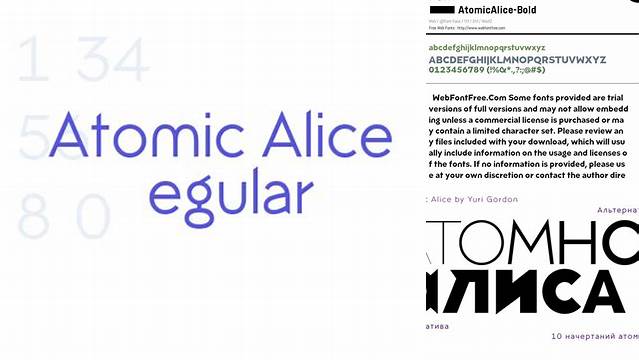
Atomic Alice Regular Font: Free Download & Guide
Hey font enthusiasts! Looking for that perfect retro-futuristic vibe for your next project? You've probably stumbled upon the Atomic Alice font, and for good reason! This font has a unique charm that blends mid-century modern aesthetics with a playful, almost sci-fi feel. In this guide, we're diving deep into the world of Atomic Alice Regular Font Free Download, exploring everything from its origins and best uses to where you can (legally!) snag it for your designs. So, let's get started, guys!
What is Atomic Alice Font?
Let's kick things off by understanding exactly what Atomic Alice Regular Font Free Download is all about. This captivating font is known for its distinctive, slightly condensed characters and rounded terminals, which give it a friendly yet stylish appearance. Imagine the sleek lines of a vintage diner sign combined with the futuristic optimism of the Space Age β that's Atomic Alice Regular Font Free Download in a nutshell. It's the kind of font that grabs attention without being overly aggressive, making it a fantastic choice for a variety of design projects. Its clean lines and retro feel make Atomic Alice Regular Font Free Download a standout choice for designers aiming to evoke nostalgia or create a modern twist on classic styles. Whether you're working on a branding project, website design, or even print materials, this font can add a touch of uniqueness and sophistication. Think about its potential for logos, posters, and even book covers β the possibilities are truly endless. One of the key reasons Atomic Alice Regular Font Free Download is so popular is its versatility. It works well in both headlines and body text, although it truly shines in larger sizes where its unique characteristics can be fully appreciated. Its legibility is commendable, ensuring your message gets across clearly, while its stylistic flair adds a layer of visual interest that keeps readers engaged. The font's appeal lies in its ability to balance functionality with aesthetics, making it a go-to choice for designers who value both form and function. From a historical perspective, Atomic Alice Regular Font Free Download captures the essence of a bygone era, the mid-20th century, a time marked by significant technological advancements and a widespread fascination with the future. This font echoes the design trends of that period, characterized by bold shapes, clean lines, and a sense of optimism. By using Atomic Alice Regular Font Free Download in your projects, you're not just choosing a font; you're incorporating a piece of design history, adding depth and context to your work. This historical connection gives the font a timeless quality, ensuring it remains relevant and stylish for years to come. For anyone looking to inject a bit of retro charm into their designs, Atomic Alice Regular Font Free Download is an excellent choice. Itβs a font that tells a story, evokes a feeling, and ultimately, helps your work stand out from the crowd. So, whether you're a seasoned designer or just starting out, exploring the possibilities of Atomic Alice Regular Font Free Download is definitely worth your time.
The History and Inspiration Behind Atomic Alice
To truly appreciate the charm of Atomic Alice Regular Font Free Download, it's essential to delve into its history and the inspirations that shaped its design. Many fonts are born from specific movements, eras, or artistic visions, and Atomic Alice Regular Font Free Download is no exception. Understanding the background can give you a deeper appreciation for the font's nuances and how to best utilize it in your projects. The font's creator likely drew inspiration from the mid-century modern design movement, a period characterized by clean lines, geometric shapes, and a sense of futuristic optimism. This era, spanning roughly from the 1940s to the 1960s, saw a surge in innovative designs across various fields, from architecture and furniture to graphic design and typography. Atomic Alice Regular Font Free Download perfectly encapsulates this aesthetic, blending retro sensibilities with a forward-looking perspective. You can almost imagine it gracing the cover of a vintage sci-fi novel or the signage of a trendy 1950s diner. The influence of the Atomic Age, with its fascination with nuclear power and space exploration, is also evident in the font's name and overall feel. This era was marked by a sense of both excitement and uncertainty, and designs often reflected this duality. Atomic Alice Regular Font Free Download manages to capture this complex mood, with its playful yet slightly serious demeanor. The font's rounded edges and slightly condensed form give it a friendly, approachable quality, while its strong, geometric structure conveys a sense of confidence and stability. In terms of specific typographic influences, Atomic Alice Regular Font Free Download may draw inspiration from other popular fonts of the mid-century period, such as Futura, Univers, and Helvetica. These fonts, known for their clean, modernist forms, set the stage for a new era of typography, and their influence can be seen in the design of Atomic Alice Regular Font Free Download. However, Atomic Alice Regular Font Free Download also has its own unique personality, setting it apart from its predecessors. Its distinctive character shapes and overall aesthetic make it a standout choice for designers looking to add a touch of retro flair to their work. By understanding the historical context and design influences behind Atomic Alice Regular Font Free Download, you can better appreciate its unique qualities and use it more effectively in your projects. Knowing where a font comes from can help you understand its strengths and weaknesses, and ultimately, make more informed design decisions. So, next time you use Atomic Alice Regular Font Free Download, remember the mid-century modern era, the Atomic Age, and the rich history of typography that shaped its creation. This knowledge will not only enhance your appreciation for the font but also inspire you to use it in new and creative ways.
Key Features and Characteristics of Atomic Alice Regular
To truly harness the potential of Atomic Alice Regular Font Free Download, it's crucial to understand its key features and characteristics. This goes beyond simply recognizing the font; it's about appreciating the nuances that make it unique and effective in various design contexts. By understanding these elements, you can make informed decisions about when and how to use the font to achieve your desired visual impact. One of the most striking features of Atomic Alice Regular Font Free Download is its distinctive letterforms. The characters are slightly condensed, giving the font a compact and efficient feel. This makes it a great choice for headlines and titles where space might be limited. The rounded terminals, or the ends of the strokes, add a touch of friendliness and approachability, softening the overall look of the font. This combination of condensed forms and rounded terminals gives Atomic Alice Regular Font Free Download a unique personality that sets it apart from more generic fonts. Another important characteristic is the font's clean, geometric construction. The letterforms are based on simple shapes, such as circles and straight lines, which gives the font a sense of order and clarity. This geometric quality is a hallmark of mid-century modern design, and it contributes to the font's retro-futuristic appeal. The consistent stroke weight throughout the font also enhances its legibility and makes it easy to read, even in smaller sizes. The overall weight of Atomic Alice Regular Font Free Download is another factor to consider. It's a medium-weight font, which means it's neither too bold nor too light. This makes it versatile enough to be used in a variety of applications, from headlines to body text. However, it truly shines in larger sizes, where its unique letterforms can be fully appreciated. When using Atomic Alice Regular Font Free Download, it's also important to consider its x-height, which is the height of the lowercase letters relative to the uppercase letters. Atomic Alice Regular Font Free Download has a relatively high x-height, which contributes to its legibility and makes it appear larger than other fonts of the same point size. This can be an advantage when you need a font that stands out and makes a statement. In summary, the key features and characteristics of Atomic Alice Regular Font Free Download include its condensed letterforms, rounded terminals, clean geometric construction, medium weight, and high x-height. These elements combine to create a font that is both stylish and functional, with a distinctive retro-futuristic appeal. By understanding these characteristics, you can use Atomic Alice Regular Font Free Download effectively in your design projects to create a visual impact that is both memorable and engaging.
Best Uses for Atomic Alice Regular Font
So, you've fallen in love with Atomic Alice Regular Font Free Download β now what? Knowing the best uses for a font is just as important as knowing its history and characteristics. Not every font is suitable for every project, and understanding the strengths of Atomic Alice Regular Font Free Download will help you make informed design decisions. Let's explore some of the scenarios where this font truly shines. One of the most obvious applications for Atomic Alice Regular Font Free Download is in designs that aim to evoke a retro or vintage feel. Its mid-century modern aesthetic makes it a perfect choice for projects that want to tap into the nostalgia of the 1950s and 1960s. Think about posters for retro-themed events, packaging for vintage-inspired products, or even website designs that want to capture a classic look. In these contexts, Atomic Alice Regular Font Free Download can add an authentic touch that resonates with viewers. Another fantastic use for Atomic Alice Regular Font Free Download is in headlines and titles. Its condensed letterforms and medium weight make it stand out without being overwhelming. It's a font that commands attention, making it ideal for grabbing the reader's eye and conveying a clear message. Whether you're designing a magazine cover, a website header, or a poster, Atomic Alice Regular Font Free Download can help you create a strong visual hierarchy and ensure your message gets noticed. Beyond retro designs, Atomic Alice Regular Font Free Download also works well in projects that need a touch of playfulness and personality. Its rounded terminals and friendly appearance make it a great choice for designs that want to feel approachable and engaging. Think about branding for a children's product, a website for a creative agency, or even a logo for a quirky startup. In these contexts, Atomic Alice Regular Font Free Download can help you create a brand identity that is both memorable and likeable. The font's versatility also extends to the digital realm. Atomic Alice Regular Font Free Download looks great on screen, making it a solid choice for website designs, mobile apps, and other digital projects. Its clean lines and clear letterforms ensure legibility, even at smaller sizes, which is essential for a positive user experience. Whether you're designing a website header, a navigation menu, or body text, Atomic Alice Regular Font Free Download can help you create a visually appealing and user-friendly interface. Finally, consider using Atomic Alice Regular Font Free Download in projects that need a touch of uniqueness and style. In a world filled with generic fonts, Atomic Alice Regular Font Free Download stands out with its distinctive personality. It's a font that can add a touch of sophistication and flair to any design, making it a great choice for projects that want to make a statement. So, whether you're designing a logo, a poster, or a website, Atomic Alice Regular Font Free Download can help you create a visual identity that is both memorable and impactful. In conclusion, the best uses for Atomic Alice Regular Font Free Download include retro designs, headlines and titles, projects that need a playful touch, digital applications, and designs that want to stand out. By understanding these scenarios, you can effectively leverage the strengths of Atomic Alice Regular Font Free Download and create designs that are both visually appealing and strategically sound.
Alternatives to Atomic Alice Regular Font
Let's say you've searched high and low, but you're still having trouble finding an exact Atomic Alice Regular Font Free Download. Don't worry, guys! The world of typography is vast and varied, and there are plenty of alternatives that can capture a similar retro-futuristic vibe. Exploring these alternatives can not only help you find a font that meets your needs but also expand your typographic palette and inspire new design ideas. Here are some fantastic alternatives to Atomic Alice Regular Font Free Download that you might want to consider. One excellent alternative is Montserrat. Montserrat is a geometric sans-serif font that shares many similarities with Atomic Alice Regular Font Free Download. It has clean lines, a slightly condensed form, and a modern aesthetic that makes it a great choice for headlines, logos, and branding materials. Montserrat is available on Google Fonts, making it easily accessible and free to use for both personal and commercial projects. Another strong contender is Futura. Futura is a classic geometric sans-serif font that was designed in the 1920s. It has a timeless quality that makes it a popular choice for a wide range of design applications. Futura's clean lines and geometric shapes give it a similar retro-futuristic feel to Atomic Alice Regular Font Free Download, and it's a great option if you're looking for a font with a strong historical pedigree. Lato is another excellent alternative. Lato is a sans-serif font with semi-rounded details that give it a warm and friendly appearance. Its clean lines and balanced proportions make it highly legible, and it works well in both headlines and body text. Lato is available on Google Fonts and is free to use for both personal and commercial projects. If you're looking for a font with a bit more personality, consider Oswald. Oswald is a sans-serif font that was designed specifically for digital screens. It has a slightly condensed form and a strong, assertive character that makes it a great choice for headlines and titles. Oswald is available on Google Fonts and is free to use for both personal and commercial projects. Another option with a retro vibe is Bebas Neue. Bebas Neue is a sans-serif font with a tall, narrow profile that makes it a great choice for headlines and posters. Its clean lines and modern aesthetic give it a similar feel to Atomic Alice Regular Font Free Download, and it's a popular choice for designs that want to make a statement. If you're searching for a font with a more playful feel, consider Cabin. Cabin is a humanist sans-serif font with rounded terminals and a friendly appearance. It has a warm and inviting character that makes it a great choice for projects that want to feel approachable and engaging. Cabin is available on Google Fonts and is free to use for both personal and commercial projects. In addition to these fonts, there are many other alternatives to Atomic Alice Regular Font Free Download that you can explore. Websites like Google Fonts, Font Squirrel, and Dafont offer a vast selection of free fonts, and you can often find hidden gems by browsing their collections. When choosing an alternative font, it's important to consider the overall tone and style of your project. Think about the message you want to convey and the audience you want to reach, and choose a font that aligns with your goals. Experiment with different fonts and see what works best for your design. In conclusion, while finding an exact Atomic Alice Regular Font Free Download might be challenging, there are plenty of excellent alternatives that can capture a similar retro-futuristic vibe. Montserrat, Futura, Lato, Oswald, Bebas Neue, and Cabin are just a few of the many fonts you might want to consider. By exploring these alternatives, you can expand your typographic toolkit and find the perfect font for your next project. Happy designing!
How to Use Atomic Alice Regular Font in Your Designs
Alright, you've got your Atomic Alice Regular Font Free Download (or a fantastic alternative!) and you're itching to put it to work. But how do you actually use this font effectively in your designs? Choosing a font is just the first step; knowing how to implement it correctly is what will truly elevate your work. Let's dive into some tips and best practices for using Atomic Alice Regular Font Free Download in various design projects. First and foremost, consider the context of your design. As we discussed earlier, Atomic Alice Regular Font Free Download has a distinct retro-futuristic vibe. This makes it an excellent choice for projects that want to evoke a vintage feel, but it might not be the best fit for designs that need to feel ultra-modern or corporate. Think about the overall message you want to convey and make sure the font aligns with your vision. One of the most effective ways to use Atomic Alice Regular Font Free Download is in headlines and titles. Its condensed letterforms and medium weight make it stand out without being overwhelming, and its unique personality can add a touch of flair to your designs. When using Atomic Alice Regular Font Free Download in headlines, consider pairing it with a simpler sans-serif or serif font for the body text to create a visual contrast and enhance readability. When it comes to body text, Atomic Alice Regular Font Free Download can work well, but it's important to use it sparingly. Its distinctive character can become tiring to read in large blocks of text, so it's often best to reserve it for shorter paragraphs or captions. If you're using Atomic Alice Regular Font Free Download in body text, make sure to choose a comfortable font size and adjust the line spacing to ensure optimal readability. Pairing fonts effectively is crucial for creating a visually harmonious design. When using Atomic Alice Regular Font Free Download, consider pairing it with fonts that complement its retro-futuristic aesthetic. Clean, geometric sans-serif fonts like Montserrat or Lato can work well, as can classic serif fonts like Garamond or Times New Roman. Experiment with different font pairings to see what works best for your project. Color is another important factor to consider when using Atomic Alice Regular Font Free Download. The font's retro vibe lends itself well to vintage-inspired color palettes, such as muted pastels, bold primary colors, and earthy tones. Think about using Atomic Alice Regular Font Free Download in combination with colors that evoke the mid-century modern era, such as teal, mustard yellow, and olive green. In addition to color, consider the overall layout and composition of your design. Atomic Alice Regular Font Free Download works well in designs that have a strong sense of structure and visual hierarchy. Think about using the font in combination with geometric shapes, clean lines, and ample white space to create a design that is both visually appealing and easy to navigate. Finally, don't be afraid to experiment and break the rules. While it's helpful to follow best practices, the most important thing is to create a design that is unique and effective. Play around with different font sizes, weights, and styles, and see what you can create. The key is to have fun and let your creativity shine. In conclusion, using Atomic Alice Regular Font Free Download effectively in your designs involves considering the context, using it strategically in headlines and body text, pairing it with complementary fonts, choosing appropriate colors, and creating a well-structured layout. By following these tips and best practices, you can leverage the strengths of Atomic Alice Regular Font Free Download and create designs that are both visually stunning and strategically sound.
Common Mistakes to Avoid When Using Atomic Alice Regular
So, you're armed with Atomic Alice Regular Font Free Download (or a stellar substitute), and you're ready to unleash its retro charm. But hold on a sec, guys! Before you go wild, let's talk about some common pitfalls to avoid. Even the coolest fonts can look disastrous if used incorrectly. Knowing these common mistakes can save you from design headaches and ensure your projects look polished and professional. One of the biggest mistakes is overusing the font. Atomic Alice Regular Font Free Download has a strong personality, and using it too much can be overwhelming. Imagine a room filled with brightly colored furniture β it might be fun at first, but it can quickly become visually exhausting. The same goes for fonts. If you use Atomic Alice Regular Font Free Download for every headline, subheadline, and paragraph, your design will likely feel cluttered and chaotic. Instead, use it strategically for key elements like titles and logos, and pair it with a simpler font for body text. Another common mistake is using Atomic Alice Regular Font Free Download in inappropriate contexts. As we've discussed, this font has a distinct retro-futuristic vibe, which makes it perfect for certain projects but less suitable for others. Using it in a design that needs to feel serious, professional, or modern can create a jarring disconnect. Think about the message you're trying to convey and make sure the font aligns with your overall aesthetic. Poor font pairing is another frequent error. Pairing fonts is an art, and choosing the wrong combination can undermine your design. Atomic Alice Regular Font Free Download works best when paired with fonts that complement its personality. Pairing it with another overly decorative or attention-grabbing font can create a visual clash. Stick to simpler sans-serif or serif fonts for body text, and experiment with different combinations to find a harmonious balance. Ignoring readability is a critical mistake. No matter how stylish a font is, it's useless if it's difficult to read. While Atomic Alice Regular Font Free Download is generally legible, it can become challenging to read in small sizes or large blocks of text. Make sure to choose a comfortable font size and adjust the line spacing to ensure your text is easy on the eyes. Using incorrect font weights is another common pitfall. Atomic Alice Regular Font Free Download typically comes in a single weight, but if you're using an alternative font that offers multiple weights, it's important to choose the right one. Using a weight that is too light can make your text appear weak and insubstantial, while using a weight that is too heavy can make it feel overpowering. Stick to the regular weight for most applications, and use bolder weights sparingly for emphasis. Finally, neglecting letter spacing and kerning can detract from the overall appearance of your design. Letter spacing refers to the space between all the letters in a word, while kerning refers to the space between specific pairs of letters. Adjusting these settings can improve the legibility and visual appeal of your text. If your letters look too crowded or too far apart, take the time to tweak the letter spacing and kerning until they look just right. In conclusion, avoiding these common mistakes will help you use Atomic Alice Regular Font Free Download (or its alternatives) more effectively in your designs. Overusing the font, using it in inappropriate contexts, poor font pairing, ignoring readability, using incorrect font weights, and neglecting letter spacing and kerning can all detract from the overall impact of your design. By being mindful of these pitfalls, you can create designs that are both stylish and professional.